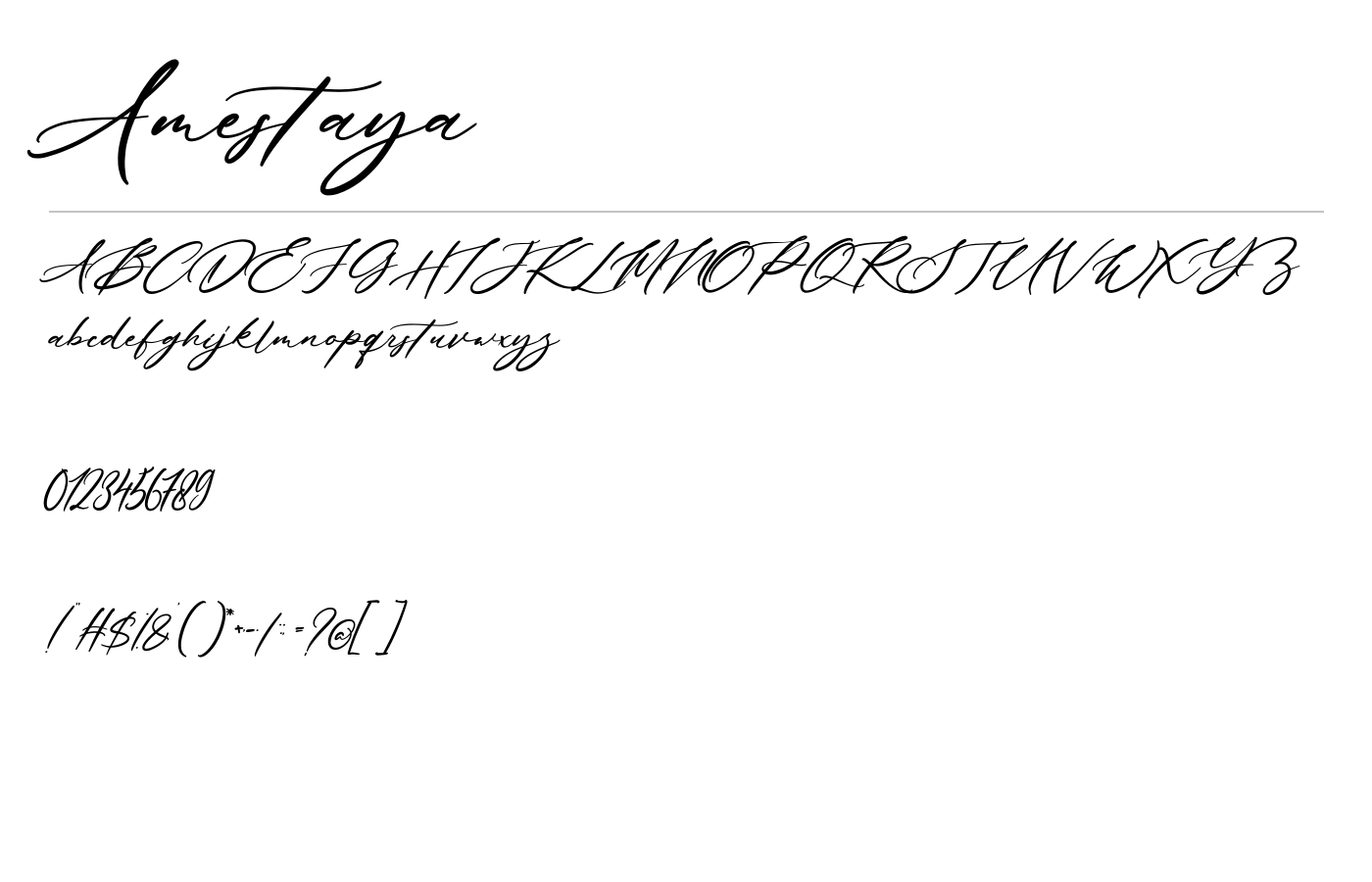
Amestaya is an elegant, flowing script font that features delicate, calligraphic strokes with a graceful, handwritten feel. Its slender letterforms and stylish flourishes make it ideal for sophisticated branding, invitations, and creative projects where a personal, refined touch is desired. This font shines best in display settings like logos, headlines, and packaging, adding a sense of charm and luxury.
Amestaya Font
About Amestaya Font